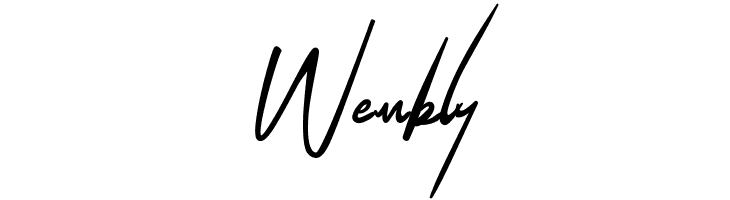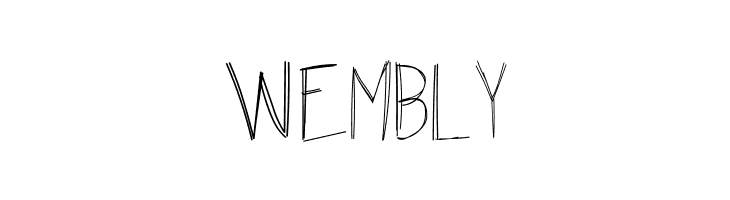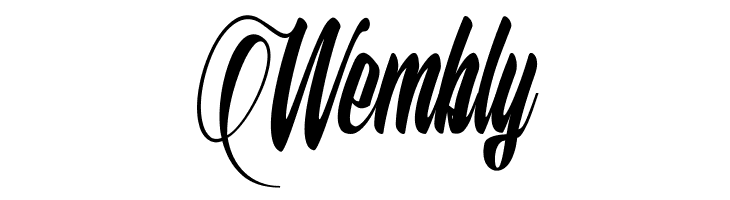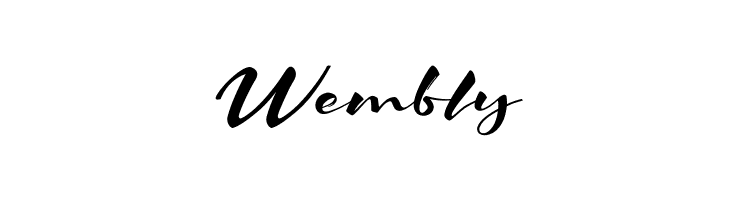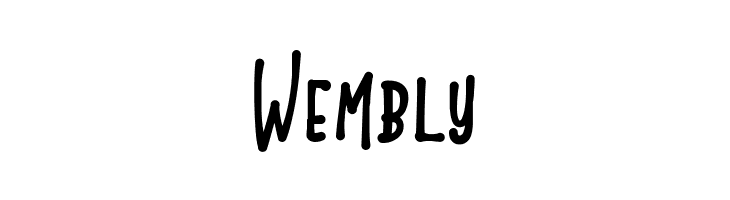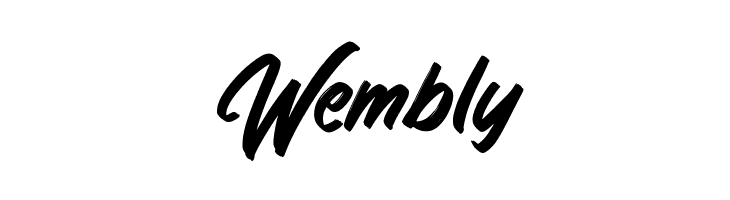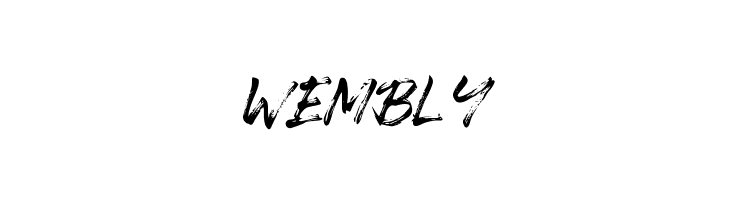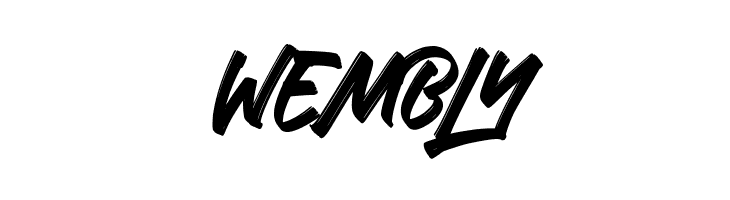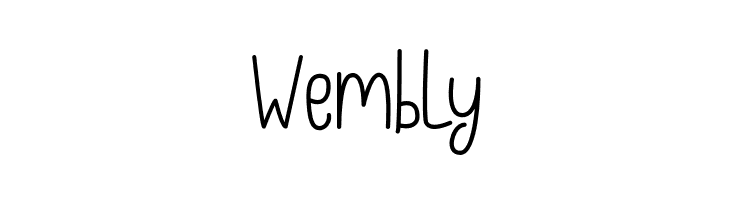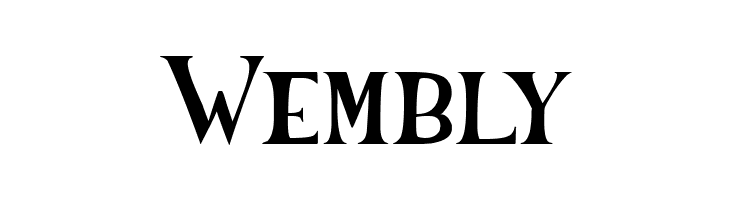
A playful, handwritten font with bold strokes and a casual style.
A playful, brush-style font with bold, dynamic strokes and a calligraphic flair.
A bold, expressive script font with a playful handwritten style.
A playful, handwritten font with bold, rounded characters and a casual style.
A bold, brush-style font with dynamic, slanted strokes.
A bold, jagged font with sharp edges and a dynamic, hand-drawn style.
A bold, brush-stroke style font with a dynamic, artistic energy.
A dynamic, handwritten font with fluid strokes and a lively, expressive style.
A bold, handwritten-style font with dynamic, marker-like strokes.
A bold, brush-style script font with energetic, hand-painted strokes.
A modern, cursive font with bold, flowing strokes and elegant connections.
An elegant, flowing script font with a handwritten feel.
A playful, energetic handwritten font with irregular strokes and dynamic flow.
An elegant, calligraphic font with flowing, decorative characters.
A bold, high-contrast serif font with dramatic and elegant features.
A bold, dynamic brush script font with an energetic, handwritten style.
A bold, expressive brush script font with dynamic strokes and a hand-painted look.
A modern, geometric font with bold, uniform strokes and a sleek, minimalistic design.
A bold, multi-line font with a geometric and modern style.
A decorative, hand-drawn font with bold, sweeping strokes and intricate details.
An elegant, flowing script font with thin strokes and graceful curves.
A graceful and sophisticated script font with fluid, sweeping strokes.
A graceful, handwritten script font with a flowing, elegant style.
A whimsical and elegant script font with flowing, interconnected letters.
A whimsical, hand-drawn font with elongated, irregular strokes.
A playful, whimsical font with tall, narrow letterforms and rounded edges.
A stylish and elegant script typeface with a flowing, cursive design.
An elegant script font with flowing, cursive letters and refined flourishes.
An elegant and flowing script font with graceful curves and delicate strokes.
A dynamic and elegant script font with flowing, cursive letterforms.
A dynamic, brush-style script font with fluid, expressive strokes.